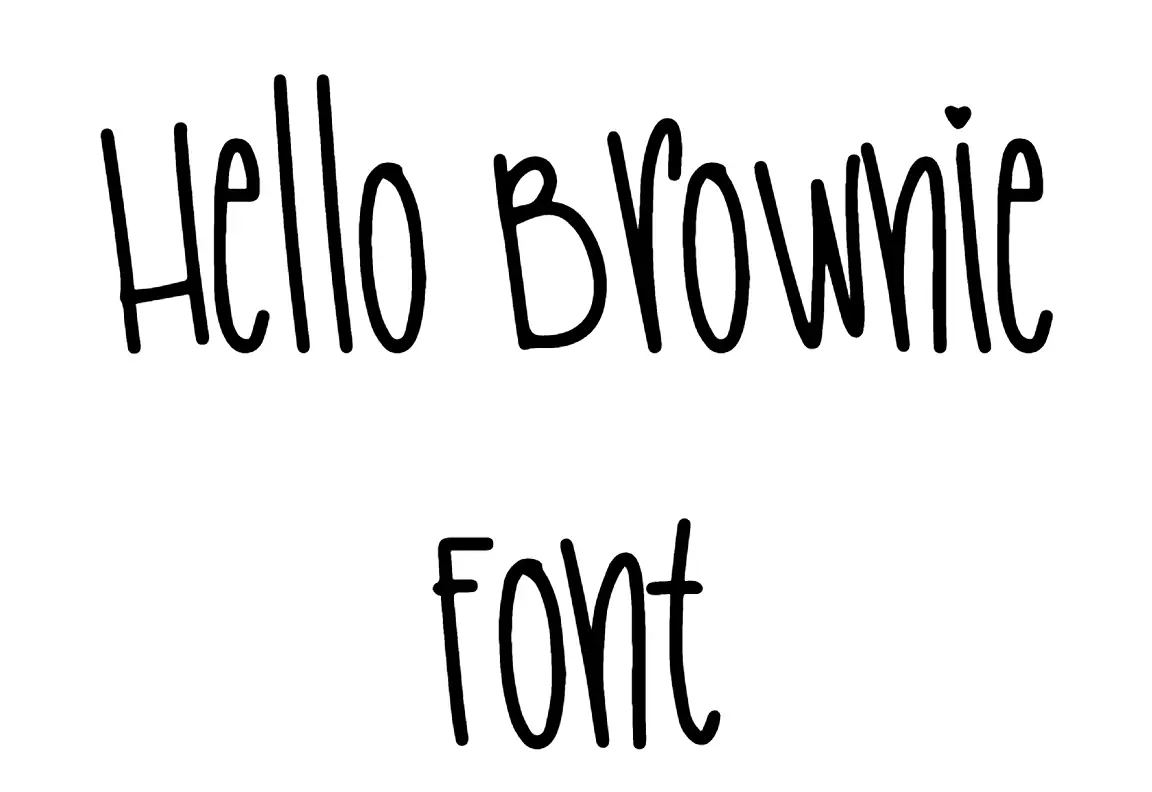
Hello Brownie Font
Hello Brownie
Hello Brownie is a handwritten font created by Revitasari. It has a casual, written-with-a-pen look that makes designs feel personal. It's a free download, and you can try it with your own text in the preview above first.
What You Can Type With Hello Brownie
Hello Brownie covers the full alphabet in upper and lowercase, plus all ten numbers, so you can set names, dates and prices without switching fonts. Everyday marks like &, !, ? and @ are there too. Thanks to its accented letters, it also works for Spanish, French, German, Portuguese and Italian, not just English.
Where Hello Brownie Works Best
Hello Brownie is a natural fit for greeting cards, journal pages and friendly social posts. Set it a bit larger than you would a normal text font. Handwriting styles lose their charm once they get too small to read comfortably.
Does Hello Brownie support accented letters?
Yes. Hello Brownie includes the accented letters needed for Spanish, French, German, Portuguese and Italian, so it works for more than just English.